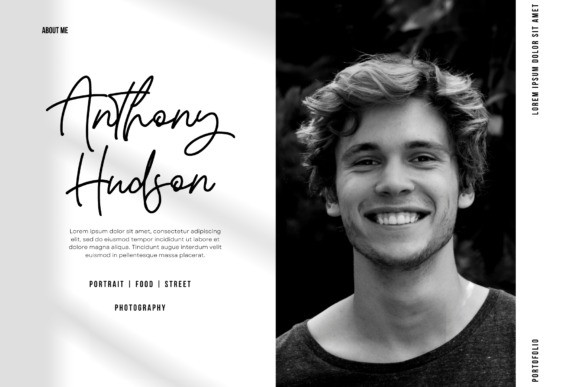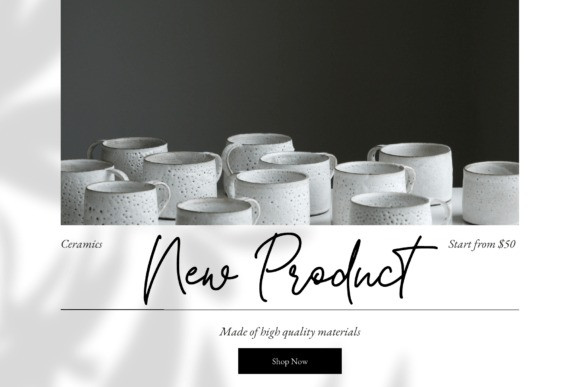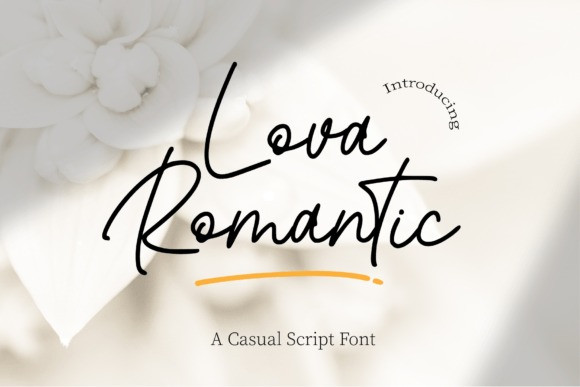
Lova Romantic Handwritten Font
Lova Romantic Handwritten Font is a sweet and cursive handwritten font with a contemporary atmosphere and impeccable form, inspired by a timeless classic calligraphy. It will look outstanding in a wide range of contexts.